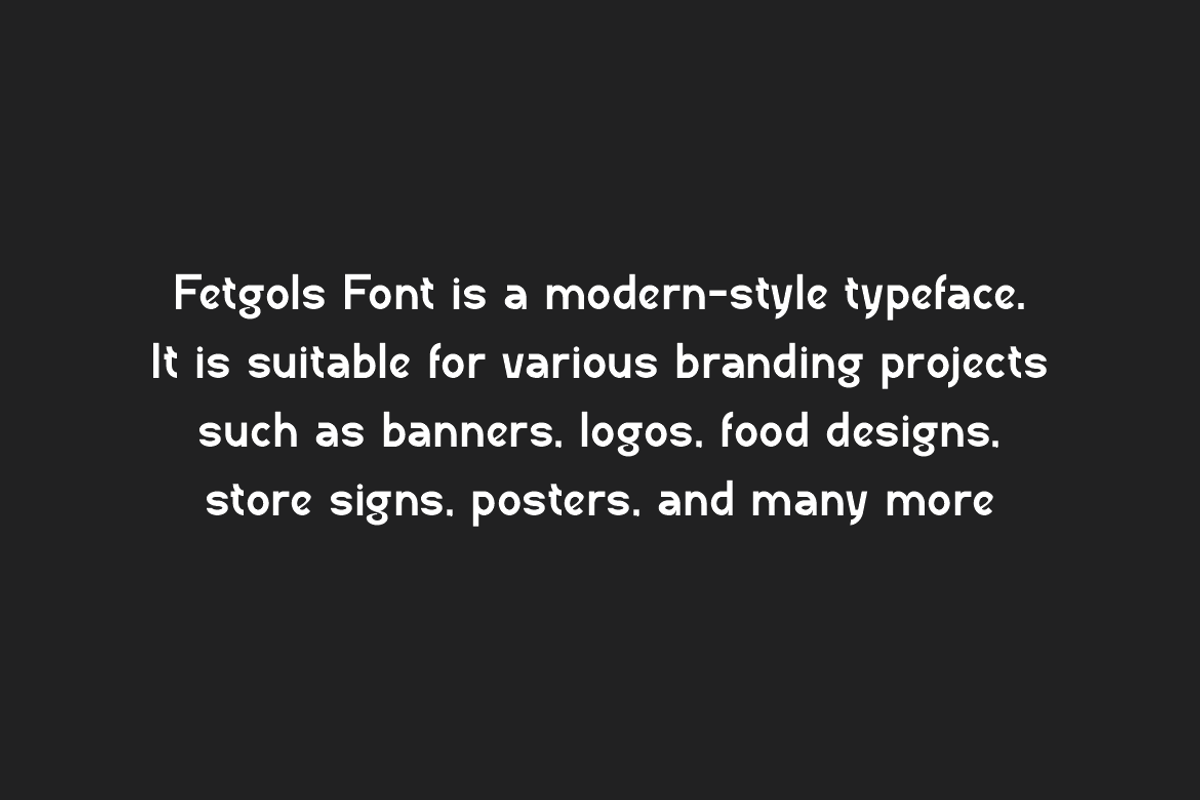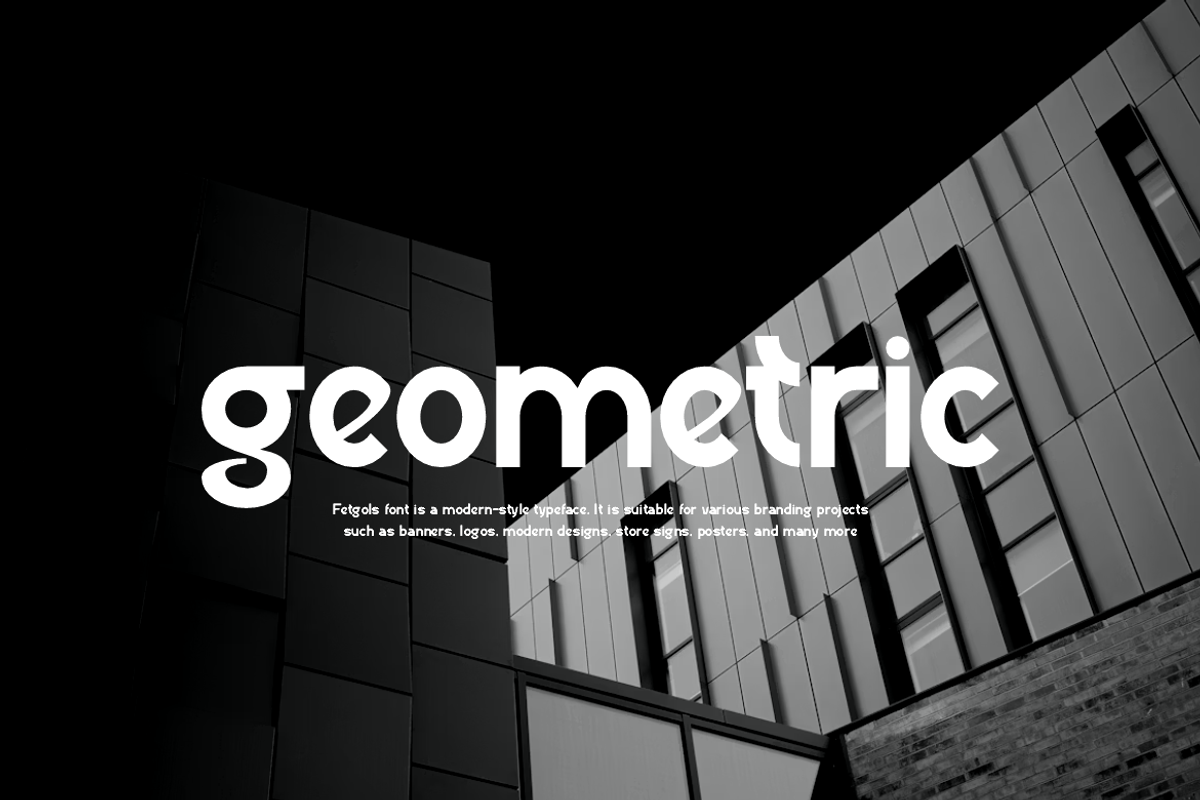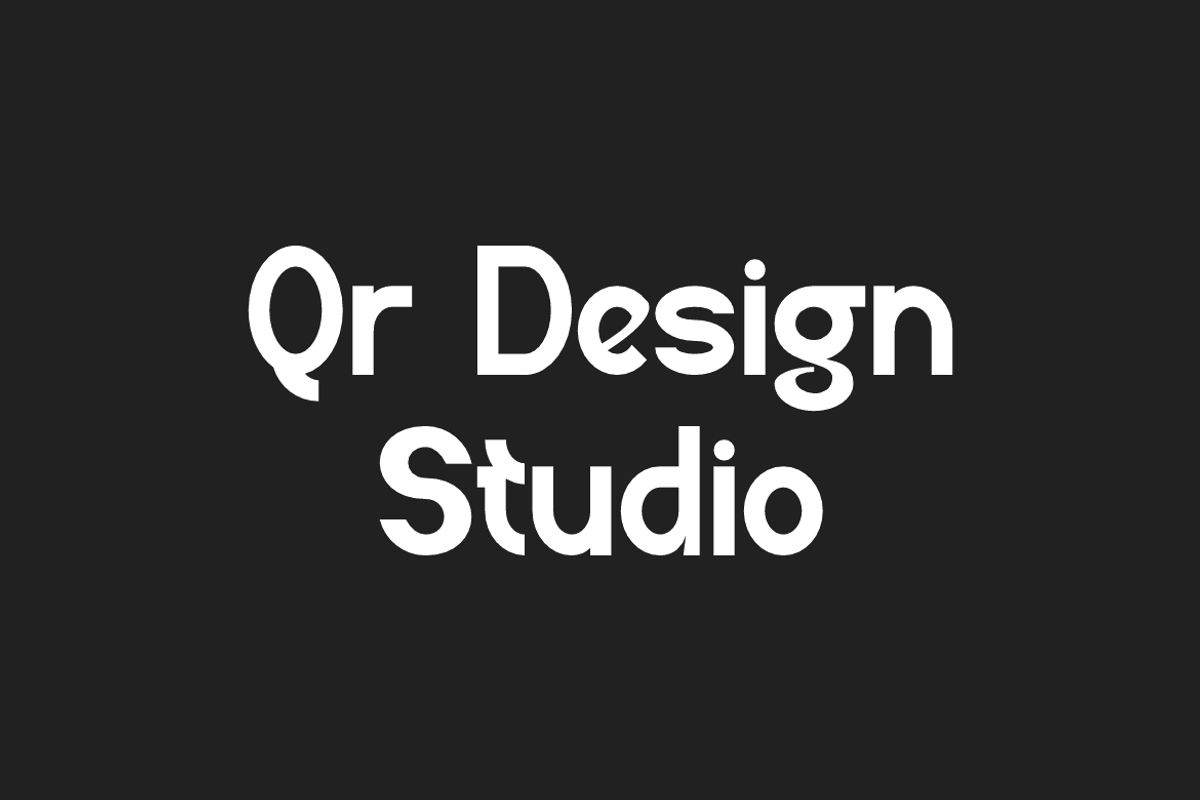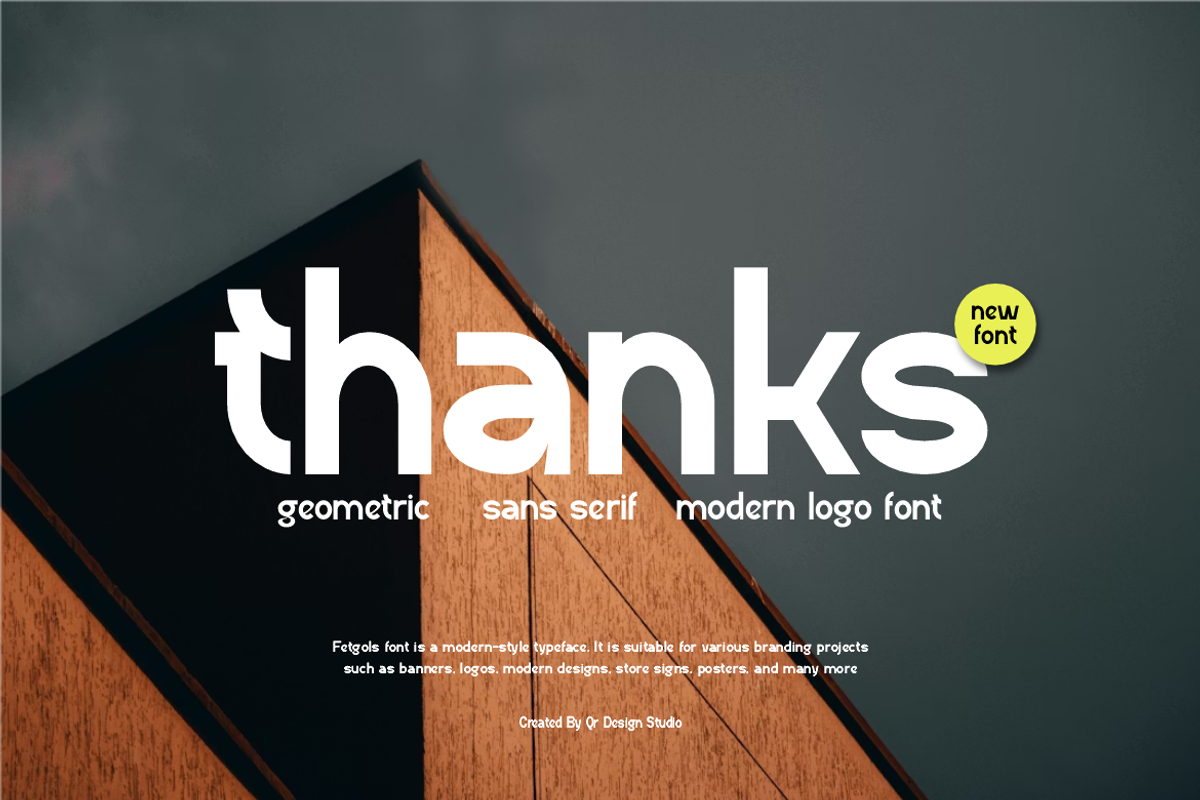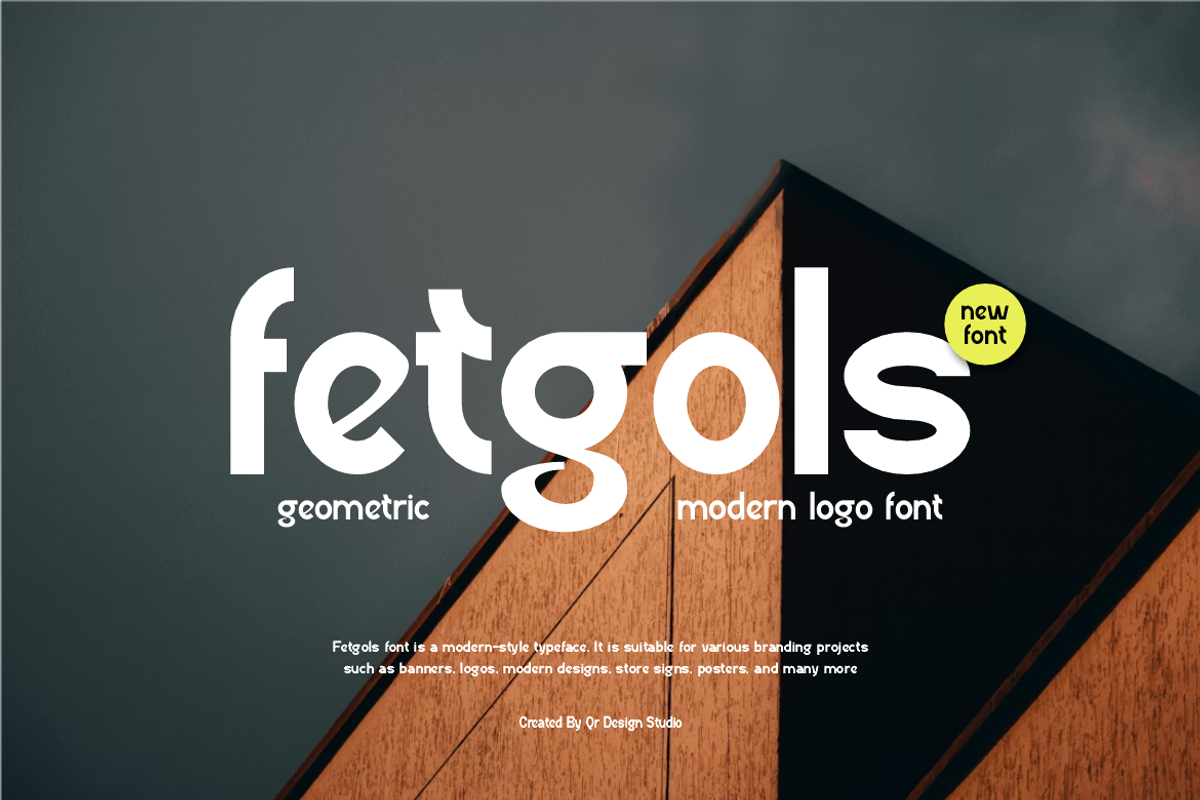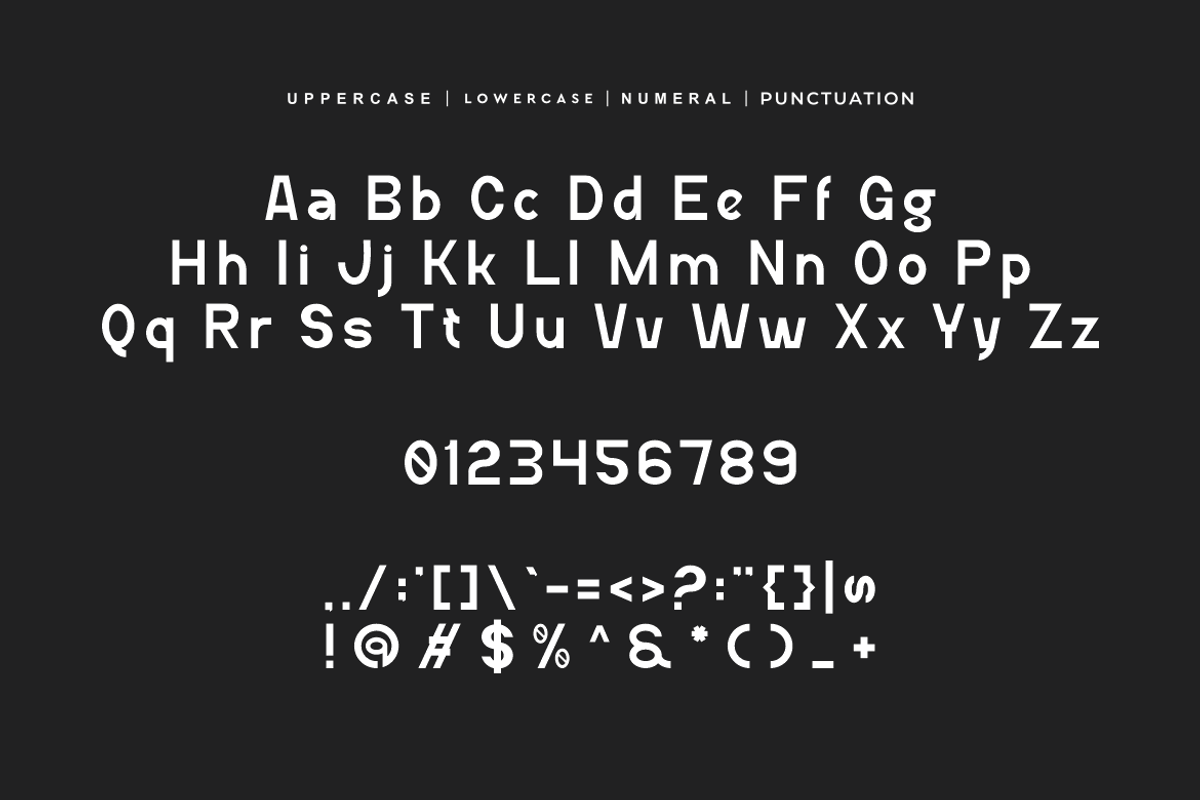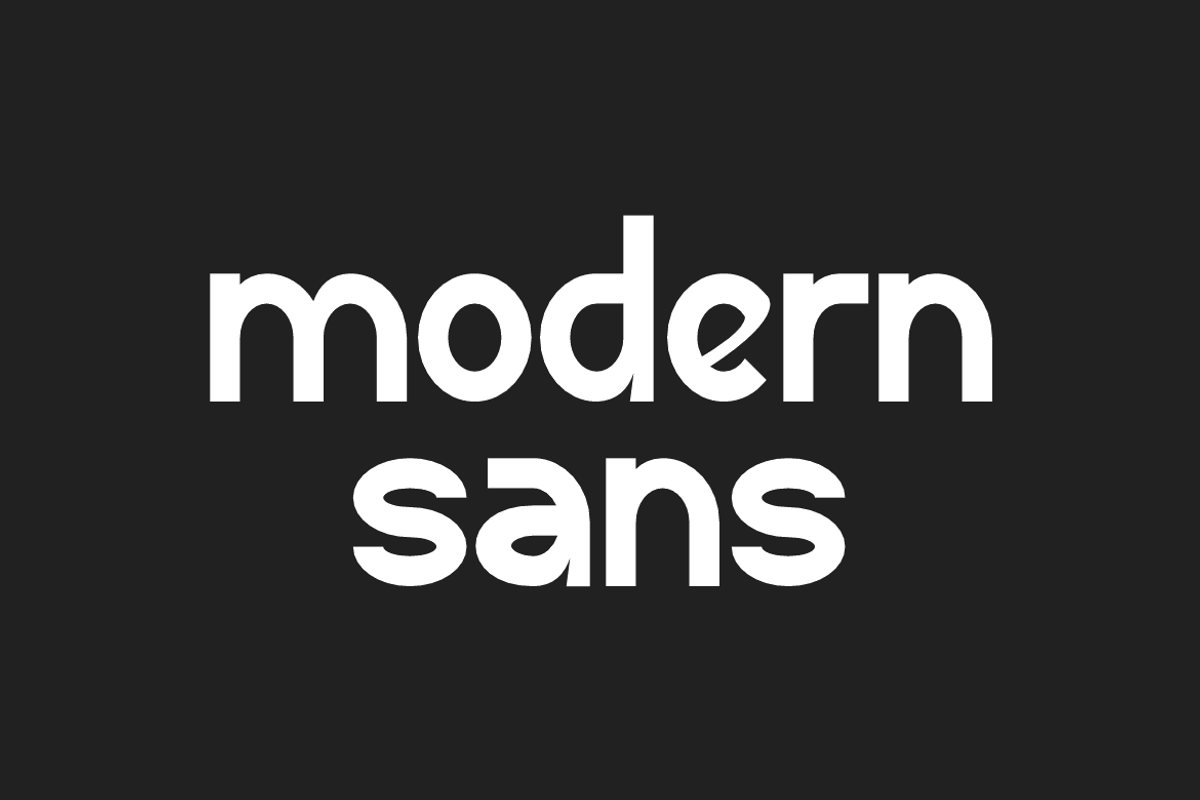
Fetgols - Modern Font
Fetgols Font is a sans serif and authentic display typeface. It’s perfect for various branding projects such as logos, sports designs, and more. This font stands out beautifully in a wide range of contexts.